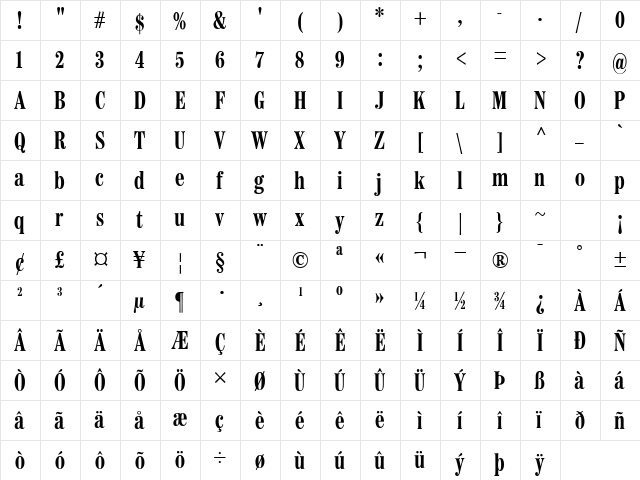
WorldwideBoldCondensed Regular Font Preview
Design Context for WorldwideBoldCondensed Typeface
WorldwideBoldCondensed takes a measured approach to typography — its balanced proportions and neutral character make it a reliable workhorse for both digital and print work. Its bold stroke weight gives it real presence on the page. The condensed width makes it efficient for tight spaces without sacrificing legibility.